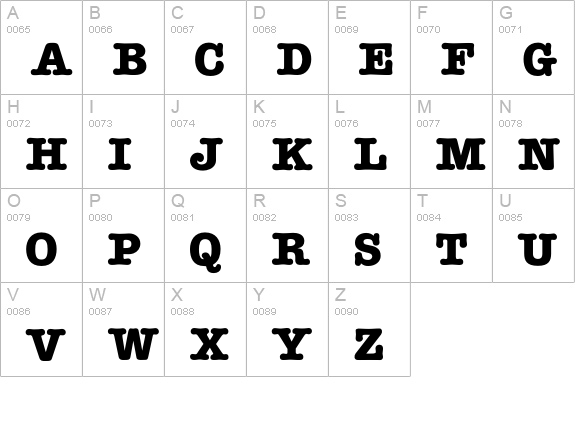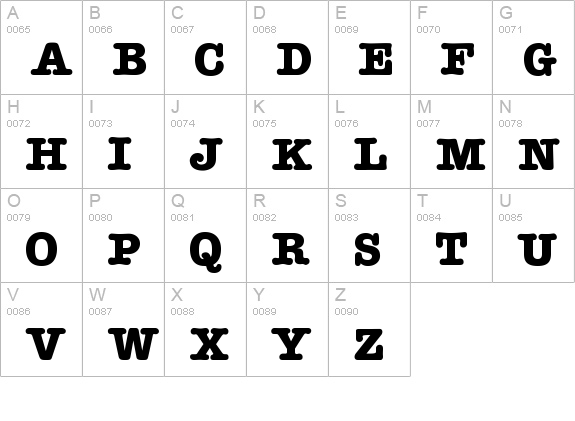
AmericanTypeBold Font Details
AmericanTypeBold is a classic and versatile font that exudes strength and confidence. With its bold and impactful letterforms, this font is perfect for making a statement in any design project. Whether you're creating posters, logos, or headlines, AmericanTypeBold commands attention and leaves a lasting impression. The best part? AmericanTypeBold is available for free download at FontsMarket.com. This means you can add this powerful font to your collection without breaking the bank. Don't miss out on the opportunity to enhance your designs with the bold and dynamic style of AmericanTypeBold – download it for free today!